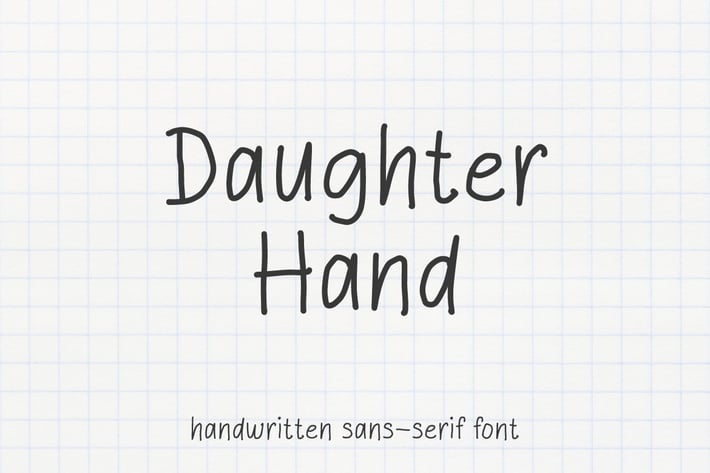
Daughter Hand - Minimalist Handwritten font
Hello! Daughter Hand is a minimalist handwritten font.
Daughter Hand can be used in any works such as flyer, book title, advertisement, social media content, logo and many more.